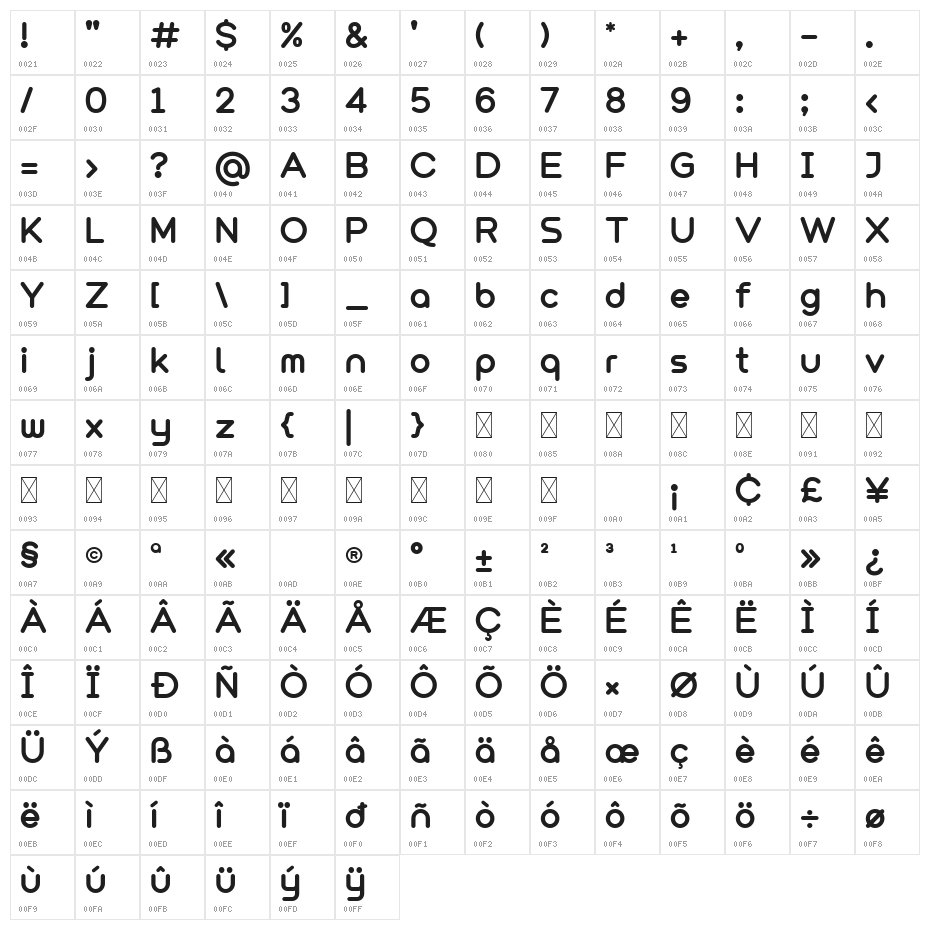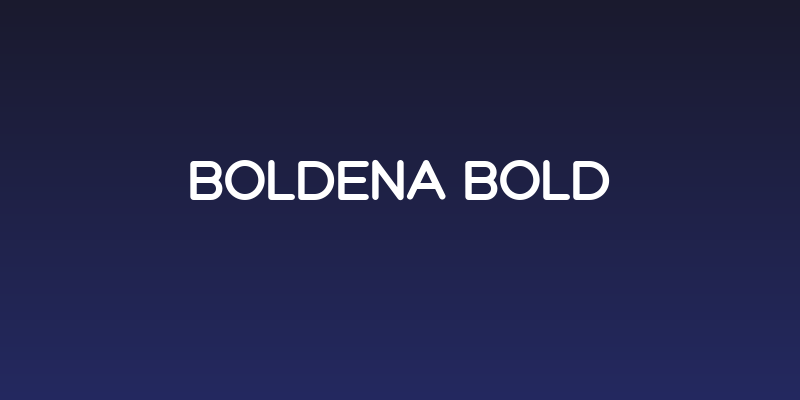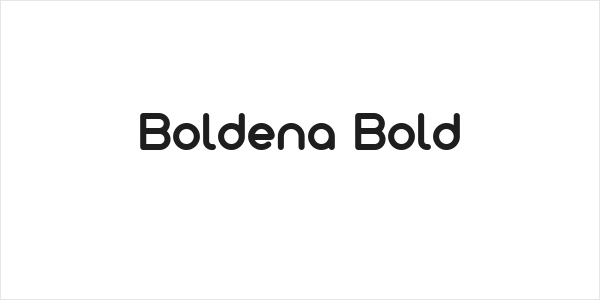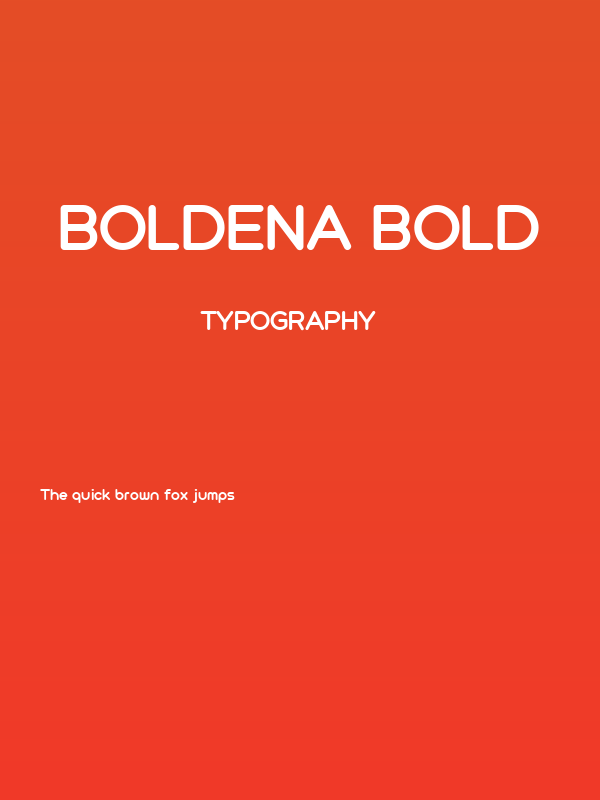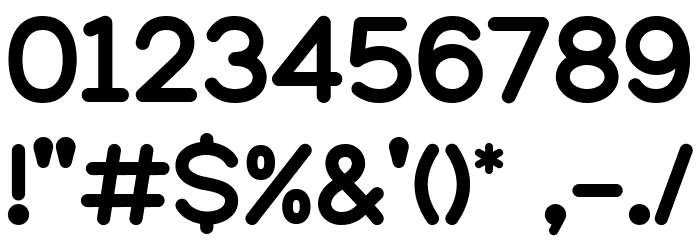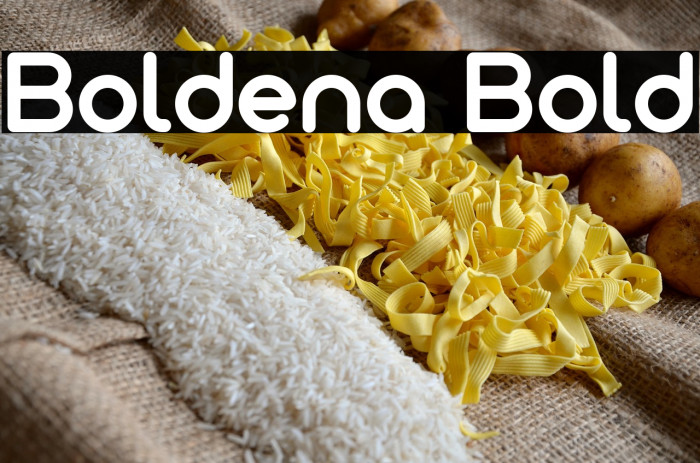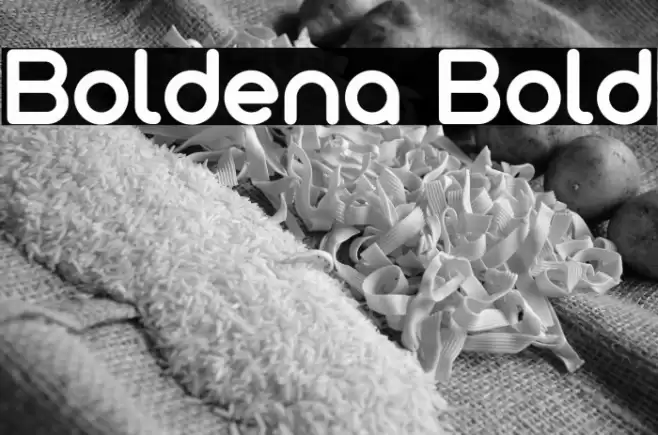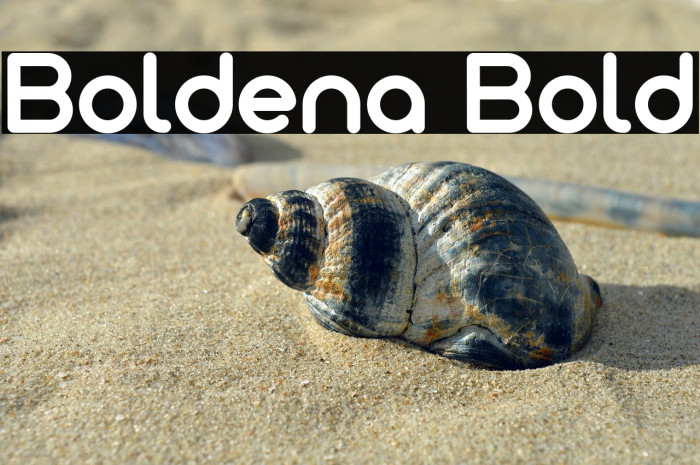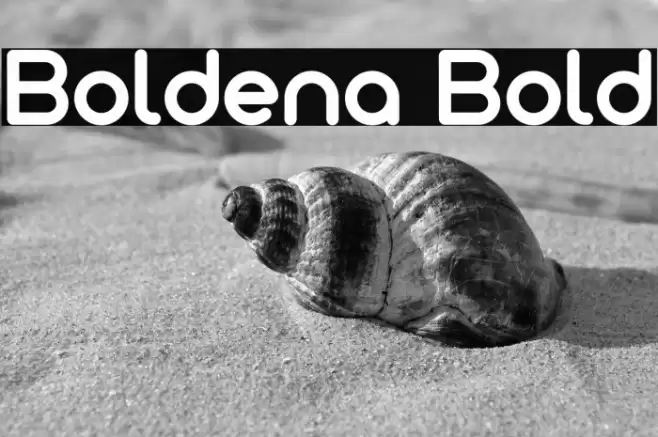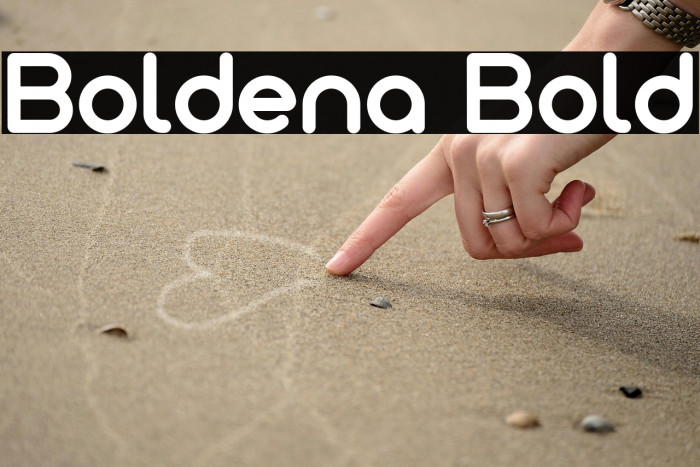
Boldena Bold Font
Boldena Bold Description
This font features a bold and rounded sans-serif style, characterized by its smooth curves and uniform stroke width. The letters are well-proportioned, offering a modern and friendly appearance. The uppercase and lowercase letters maintain a consistent design, with rounded edges that contribute to its approachable look. The numerals and special characters follow the same design principles, ensuring a cohesive visual experience. This font is versatile and can be used in various design contexts where a clean and contemporary aesthetic is desired.
| Use Case | Headlines, Logos, Digital interfaces |
| Proposed Projects | Ideal for branding, advertising, packaging, and digital interfaces where a friendly and modern appearance is needed. |